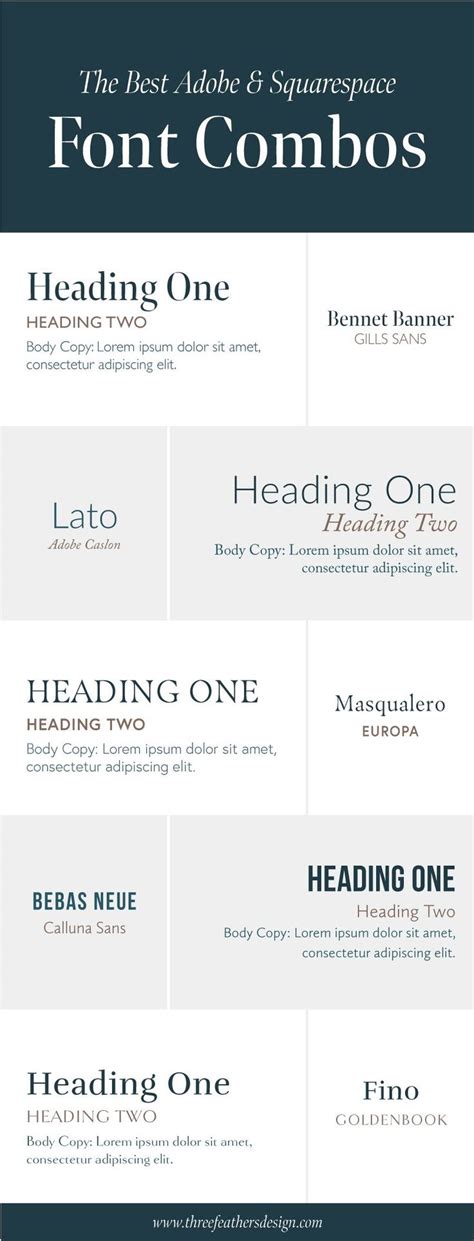
Adobe Fonts Combinations
Adobe Fonts Combinations - Map roman & alga try map roman try alga map roman is an elegant serif font that instantly takes your. Web 35+ best adobe fonts pairings for your next project 1. Web what are you looking for today? Web a curated collection of the absolute best fonts available on adobe fonts (typekit) in 2024—includes a review & faq about creative cloud. Web some great sans serif typefaces to use in flyers include open sans, multi display, depot new, roc grotesk, forma djr, raleway, roboto, and condor. {{ type.label }} {{ctrl.getexampletext(recommendation)}} {{recommendation.label}} Web turn your font dreams into reality. With generative ai text effects and over 25,000 fonts in adobe express, easily make stunning social posts, videos, flyers, and more.
8 Great Adobe Font Combinations For Your Next Design Project
Font Combinations Favorites for Squarespace
8 Great Adobe Font Combinations For Your Next Design Project
15+ Best Font Pairing Tools for Your Next Projects in 2021
8 Great Adobe Font Combinations For Your Next Design Project
Map roman & alga try map roman try alga map roman is an elegant serif font that instantly takes your. Web a curated collection of the absolute best fonts available on adobe fonts (typekit) in 2024—includes a review & faq about creative cloud. {{ type.label }} {{ctrl.getexampletext(recommendation)}} {{recommendation.label}} Web some great sans serif typefaces to use in flyers include open.
Favorite Squarespace + Adobe Font Combinations Font combinations
Map roman & alga try map roman try alga map roman is an elegant serif font that instantly takes your. Web turn your font dreams into reality. Web what are you looking for today? Web a curated collection of the absolute best fonts available on adobe fonts (typekit) in 2024—includes a review & faq about creative cloud. Web 35+ best.
16 Beautiful Google Font Combinations for 2019 We Love It But
{{ type.label }} {{ctrl.getexampletext(recommendation)}} {{recommendation.label}} With generative ai text effects and over 25,000 fonts in adobe express, easily make stunning social posts, videos, flyers, and more. Web 35+ best adobe fonts pairings for your next project 1. Map roman & alga try map roman try alga map roman is an elegant serif font that instantly takes your. Web a curated.